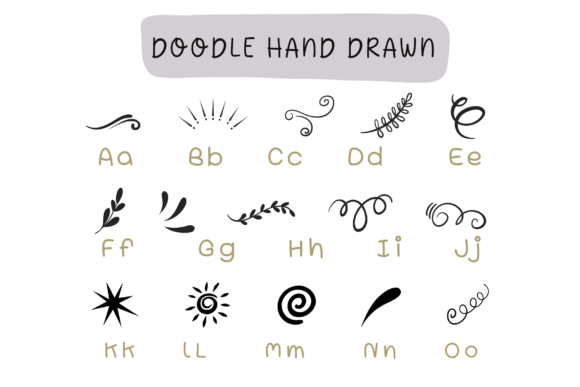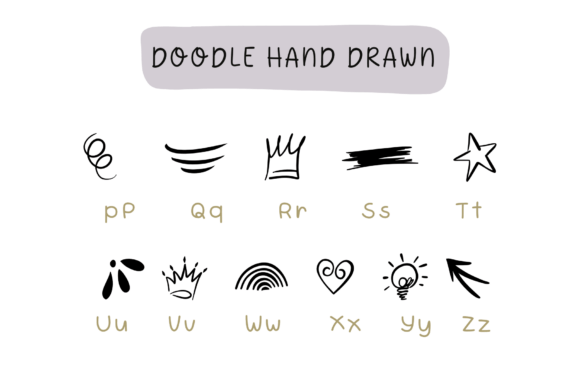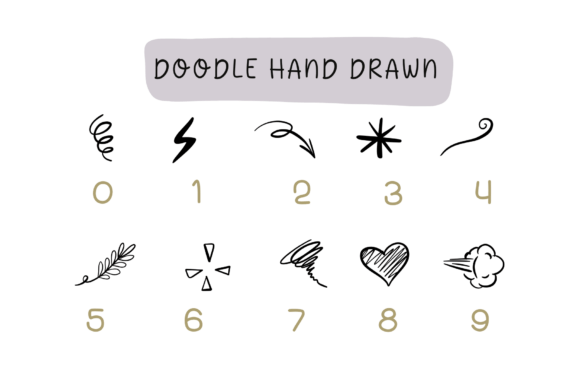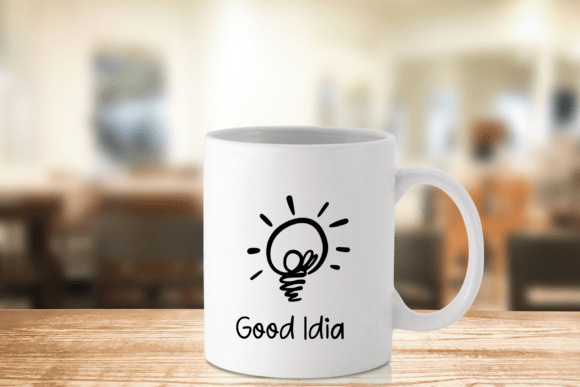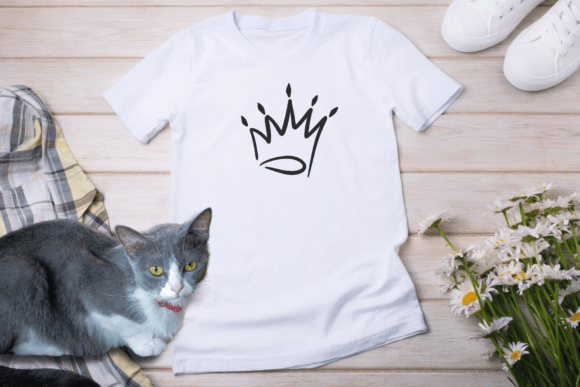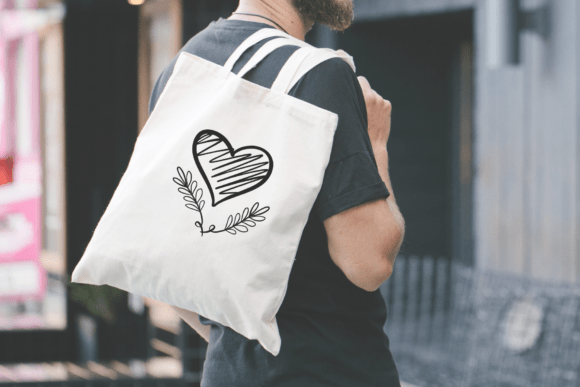
Doodle Hand Drawn Font: Add a Touch of Whimsy to Your Designs
Are you tired of using the same old fonts in your designs? Do you want to add a touch of personality and whimsy to your journals, planners, social media posts, or kids’ projects? Look no further than the Doodle Hand Drawn Dingbat Font! This charming font is filled with playful hand-drawn elements that are sure to delight designers and crafters alike.
What is Doodle Hand Drawn Dingbat Font?
The Doodle Hand Drawn Dingbat Font is a unique and creative font that features a wide range of hand-drawn elements, including crowns, arrows, stars, hearts, swirls, and sunbursts. This dingbat font is perfect for adding a touch of charm and personality to any design project. With its whimsical and playful feel, it’s ideal for use in a variety of applications, from journals and planners to social media posts and kids’ projects.
Key Features of Doodle Hand Drawn Dingbat Font
- Hand-drawn elements: Each element in the font has been carefully hand-drawn to give it a unique and personal touch.
- Wide range of symbols: The font includes a wide range of symbols, including crowns, arrows, stars, hearts, swirls, and sunbursts.
- Easy to use: Simply type to insert fun doodles with a hand-crafted touch!
- Perfect for designers and crafters: This font is ideal for designers and crafters who want to add a touch of personality to their projects.
Uses for Doodle Hand Drawn Dingbat Font
The Doodle Hand Drawn Dingbat Font is a versatile font that can be used in a variety of applications, including:
- Journals and planners: Add a touch of personality to your journal or planner with fun and playful doodles.
- Social media posts: Stand out on social media with unique and eye-catching graphics.
- Kids’ projects: Add a touch of whimsy to kids’ projects, such as school assignments or art projects.
- Stationery and greeting cards: Use the font to create custom stationery and greeting cards.
Benefits of Using Doodle Hand Drawn Dingbat Font
There are many benefits to using the Doodle Hand Drawn Dingbat Font in your designs, including:
- Adds personality: The font adds a touch of personality and whimsy to your designs.
- Easy to use: The font is easy to use and requires no special design skills.
- Versatile: The font can be used in a variety of applications.
- Unique: The font is unique and will help your designs stand out.
Tips for Using Doodle Hand Drawn Dingbat Font
Here are a few tips for using the Doodle Hand Drawn Dingbat Font in your designs:
- Experiment with different sizes and colors: Try out different sizes and colors to see what works best for your design.
- Combine with other fonts: Combine the font with other fonts to create a unique and interesting look.
- Use sparingly: Use the font sparingly to avoid overwhelming your design.
The Doodle Hand Drawn Dingbat Font is a unique and creative font that is perfect for designers and crafters who want to add a touch of personality and whimsy to their designs. With its wide range of hand-drawn elements and ease of use, it’s ideal for use in a variety of applications. Whether you’re creating journals and planners, social media posts, or kids’ projects, this font is sure to delight. So why not give it a try and see the difference it can make in your designs?